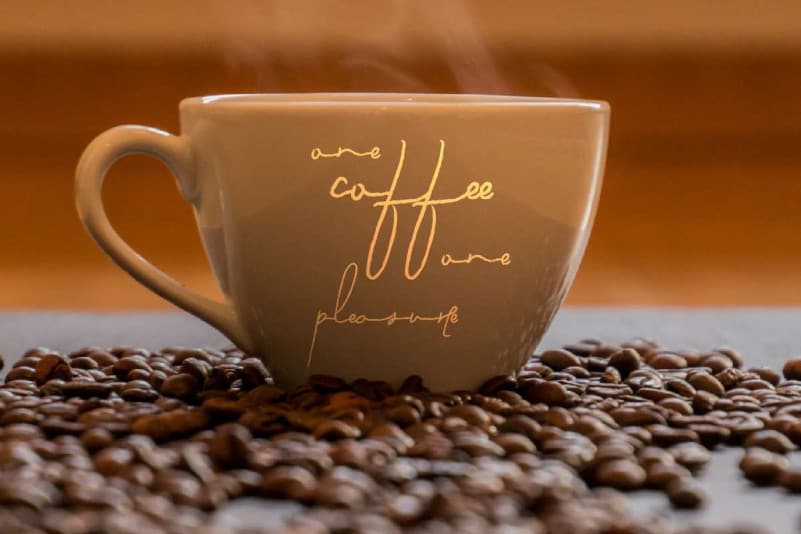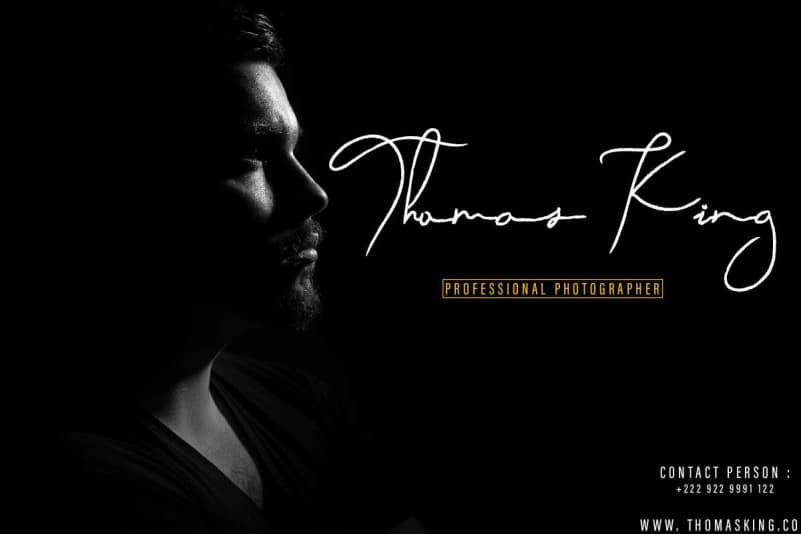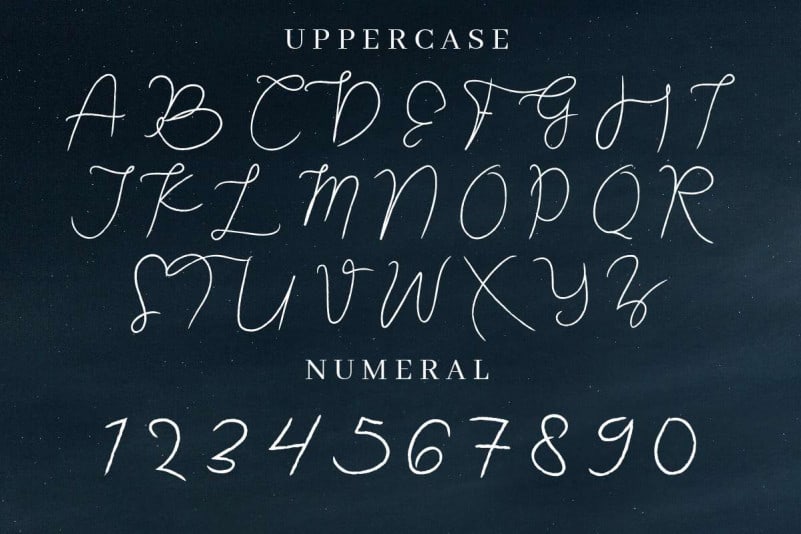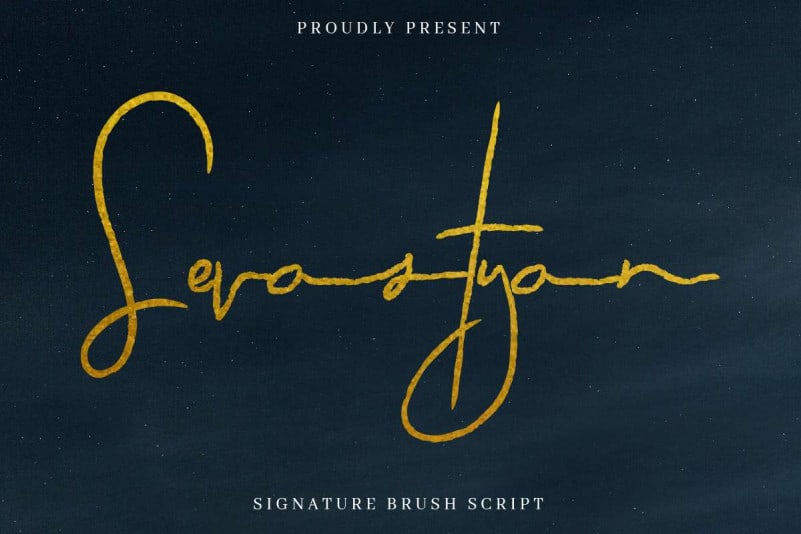
Sevastyan Script Font
Sevastyan Script Font is a unique textured calligraphy script typeface with brush style. This font has a stunning characters set, perfectly managed with well spaced and kerning. The theme style of this font will rough, luxury, misterious, vintage, stylish, sophisticated and classic brush calligraphic style.
Sevastyan Script Font will be great for any projects including : branding, logo, stationery, business card, signage, flyer, brochure etc. Almost all industries will be match for this typeface: wedding, events, real estate, architect, law firm, florist, gardening, makeup artist, travel, hotel, musician etc